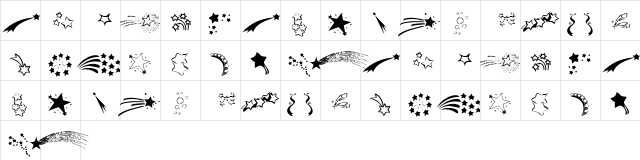
KR Starry Eyed Regular Font Preview
KR Starry Eyed Regular
KR Starry Eyed Regular Font Details
Design Context for KR Starry Eyed Typeface
KR Starry Eyed is a composed and adaptable typeface that performs quietly and consistently across a wide range of design contexts.
Pro Tip: Use KR Starry Eyed in both headline and body roles to test its range before committing to a single application.